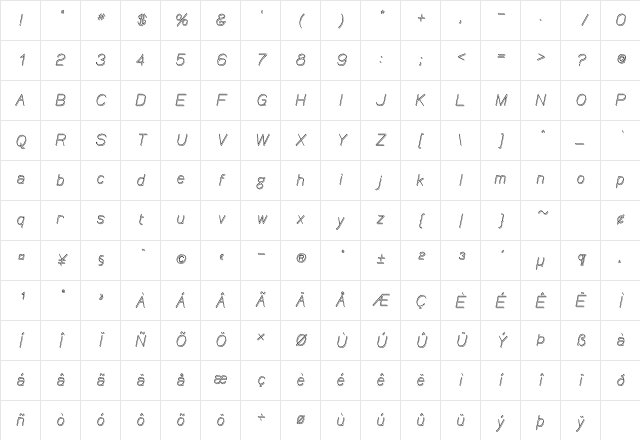
Canin Regular
Design Context for Canin
Canin is a composed and adaptable typeface that performs quietly and consistently across a wide range of design contexts.